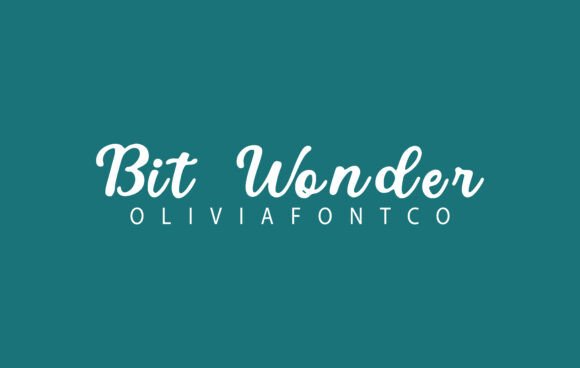
The 8Bit Wonder Font: A Designer’s Dream Come True
Have you ever been in the middle of a design project, and suddenly, you’re stuck on finding the perfect font? I certainly have! It was a typical Wednesday evening when I was working on a wedding invitation design for a client. The design was almost complete, but something was missing – the right font. That’s when I stumbled upon the 8Bit Wonder font, and it instantly became my go-to choice. In this article, I’ll share my experience with this beautiful font, its features, and how to make the most of it in your designs.
First Impressions: An Honest Review
The 8Bit Wonder font has won my heart with its authentic handwritten style and romantic touch. Here’s what I love about it:
- ✨ Legibility: This font is incredibly easy to read, making it perfect for both title and body text.
- ✅ Versatility: It can be used for a wide range of designs, from magazine headlines and social media graphics to branding, wedding invitations, and cards.
- 💕 Romantic touch: The font’s elegant and cursive style adds a touch of romance to any design, making it ideal for wedding-related projects or any design that requires a personal touch.
However, no font is perfect, and here are a few quirks to keep in mind:
- 🤔 Limited use in formal designs: While the font is incredibly versatile, it might not be the best choice for very formal designs, such as corporate branding or official documents.
- ⚠️ Glyph limitations: Some users have reported that the font could benefit from a wider range of glyphs, especially for non-English languages.
The Story Behind 8Bit Wonder
The 8Bit Wonder font was designed with the intention of bringing a touch of nostalgia and romance to digital designs. Inspired by the early days of video games and pixel art, the creator aimed to craft a font that would be both nostalgic and elegant. The result is a font that feels both modern and retro, perfect for a variety of creative projects.
- Q: Is the 8Bit Wonder font suitable for body text?
- A: Yes, the 8Bit Wonder font is legible and can be used for body text, although it’s particularly striking as a title or headline font.
- Q: Does the 8Bit Wonder font support OpenType features?
- A: Yes, the font supports OpenType features, including ligatures and stylistic alternates, which can enhance your designs.